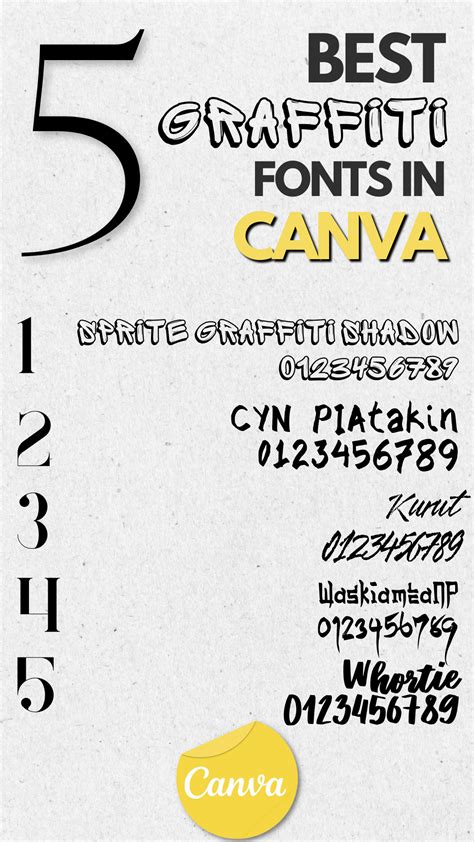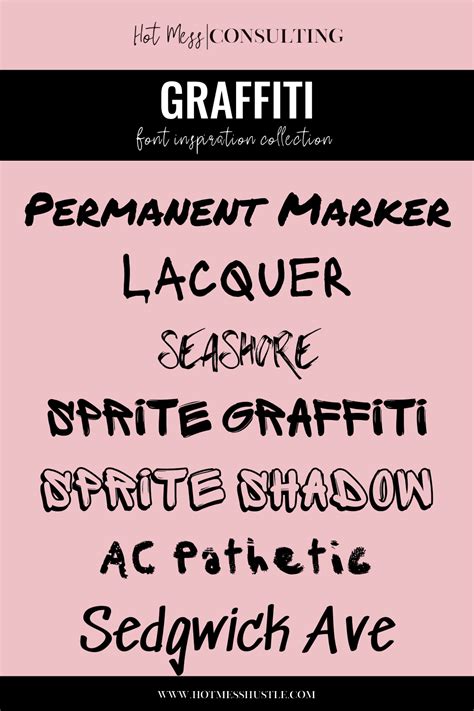
Graffiti Fonts Canva: Create Street Art Designs
Readers, have you ever been captivated by the bold and expressive nature of graffiti art? Its raw energy and vibrant colors often transform ordinary spaces into captivating visual masterpieces. But capturing that authentic street art feel can be challenging, especially if you're not a seasoned artist. That's where the power of Canva comes in, offering a user-friendly platform to unleash your creativity and design professional-looking graffiti fonts that will turn heads.
This article will delve into the world of Canva, helping you master the art of creating stunning graffiti fonts. We'll uncover the secrets to crafting authentic street art designs with Canva's intuitive tools and explore the various techniques and tricks that professionals use to capture that urban edge. We'll also identify a selection of the best graffiti fonts available on Canva, empowering you to start creating eye-catching designs right away. So, let's embark on this exciting journey, where you'll learn how to transform Canva into your own personal graffiti studio.
Exploring the World of Graffiti Fonts
Graffiti fonts are more than just fonts; they're a visual language, a form of expression, and a powerful tool for conveying messages and emotions. They often mimic the bold and often chaotic style of traditional street art, capturing the spirit of rebellion, creativity, and self-expression that defines this art form. The power of graffiti fonts lies in their ability to add visual impact, a sense of energy, and an unmistakable urban aesthetic to any design. They're a statement, a bold declaration of style, and a way to inject a dose of street culture into your projects.
Graffiti fonts are widely used in a variety of applications, including:
- Logo Design: Graffiti fonts can create unique and memorable logos that capture the essence of a brand's personality.
- Graphic Design: These fonts are perfect for adding a touch of street art to posters, flyers, social media graphics, and more.
- Web Design: Graffiti fonts can inject a dose of personality and character into website designs, making them stand out from the crowd.
- Fashion & Apparel: Graffiti fonts are commonly used to design clothing, accessories, and even footwear, adding a bold and edgy touch.
Understanding the Key Elements of Graffiti Fonts
Before diving into creating your own graffiti fonts on Canva, it's essential to understand the defining elements that make these fonts so distinctive. These elements are the building blocks of a successful graffiti font design, and mastering them will help you create authentic and visually appealing designs.
1. Boldness and Thickness:
Graffiti fonts are known for their boldness and thickness, often featuring heavy strokes that command attention. This characteristic adds a sense of power and impact to the text, making it visually striking and easily recognizable. The thickness of the letters can vary depending on the style, but they generally feature a substantial weight that distinguishes them from traditional fonts.
2. Distorted Shapes and Irregularities:
One of the most defining features of graffiti fonts is their distorted shapes and irregularities. Letters are often stretched, squeezed, or twisted, creating a dynamic and visually engaging design. This element adds a sense of movement and energy to the text, reflecting the dynamic nature of street art itself.
3. Overlap and Interlocking:
Graffiti fonts often feature overlapping and interlocking letterforms, adding complexity and visual interest. This technique creates a sense of depth and layering, making the text appear more dynamic and three-dimensional. The way letters interact with each other can also influence the overall flow and rhythm of the design.
4. Tags and Throw-Ups:
Graffiti fonts often incorporate elements of tags and throw-ups, two iconic styles of street art. Tags are short, stylized signatures that are often written in a quick and fluid manner. Throw-ups, on the other hand, are larger, more elaborate pieces that often feature bold outlines and fills. These elements can be integrated into graffiti fonts to add a distinct street art feel.
Graffiti Fonts on Canva: A Powerful Tool for Design
Canva is a user-friendly design platform that makes creating visual content accessible to everyone. Its intuitive interface and vast library of templates, images, and fonts make it perfect for tackling a wide variety of design projects, including creating eye-catching graffiti fonts. Canva's extensive selection of fonts includes a dedicated section for graffiti fonts, providing you with a curated range of options to choose from.
Canva empowers you to fully customize your graffiti fonts, allowing you to adjust:
- Font Size: Easily adjust the font size to create a visual hierarchy within your designs and ensure the text is legible.
- Color: Experiment with a vibrant palette to add visual interest and create a dynamic look.
- Letter Spacing: Fine-tune the letter spacing to create a sense of balance and flow within your designs.